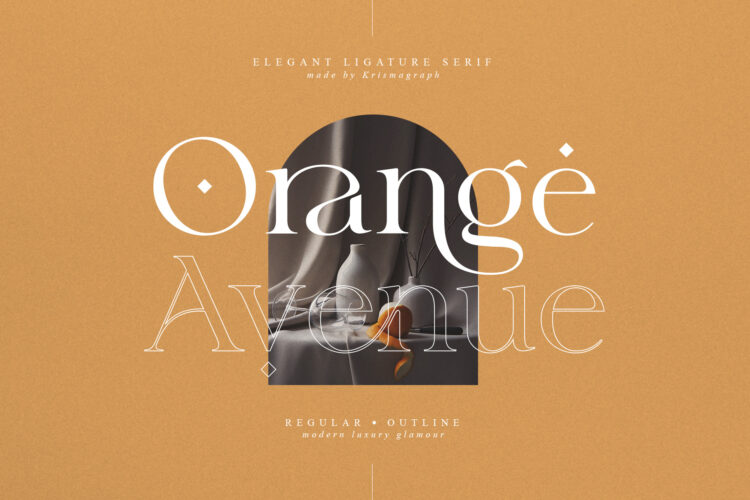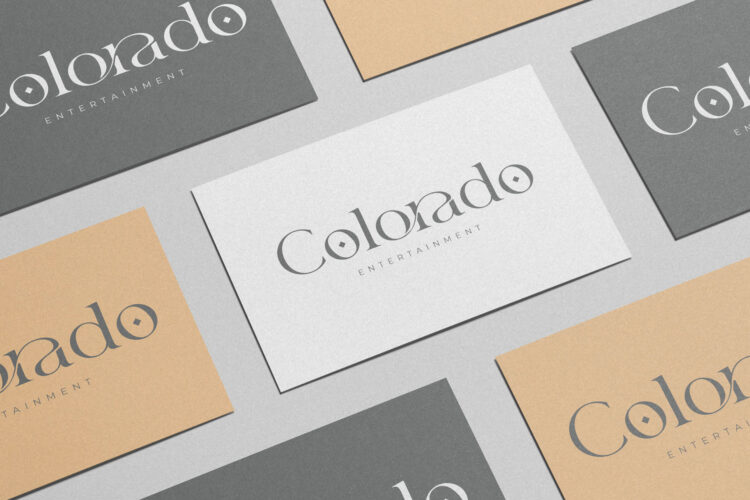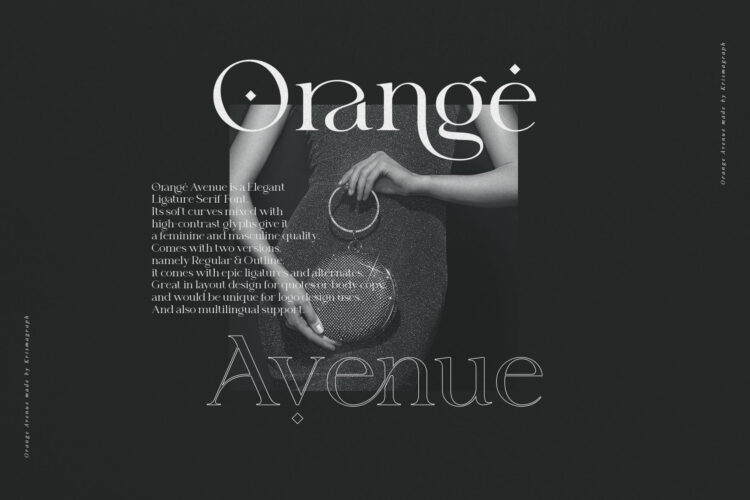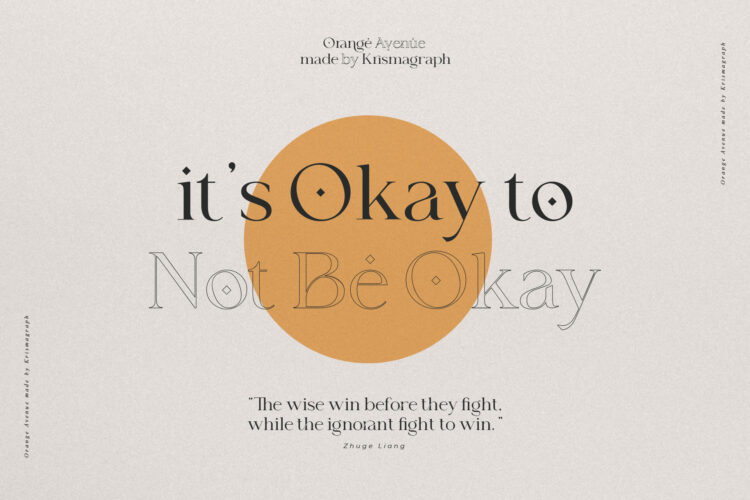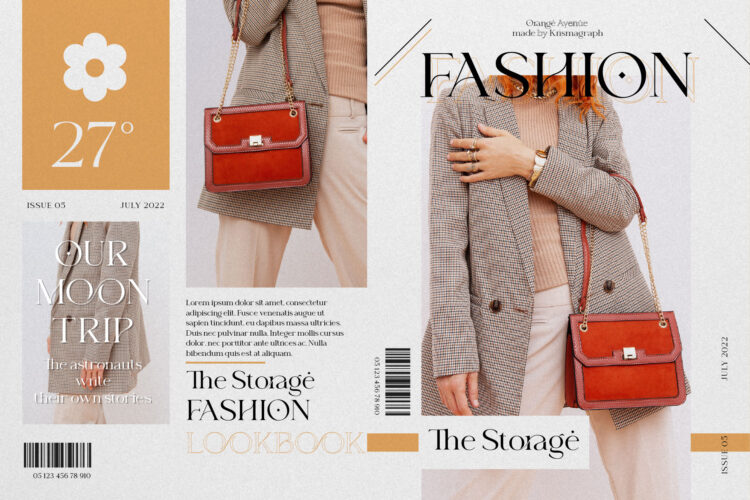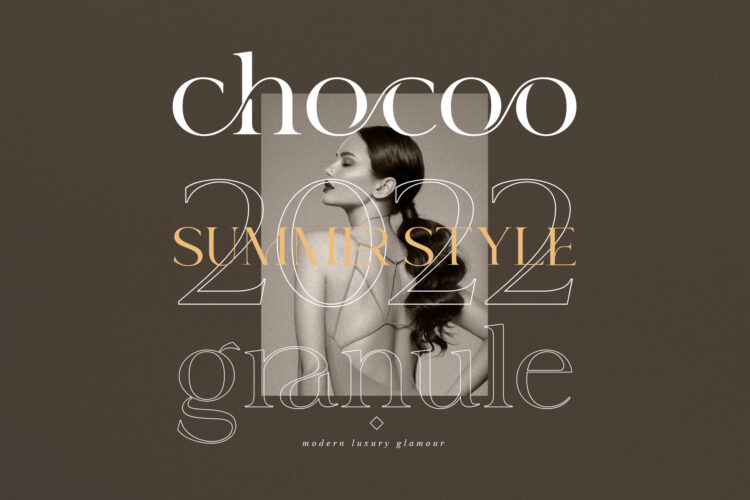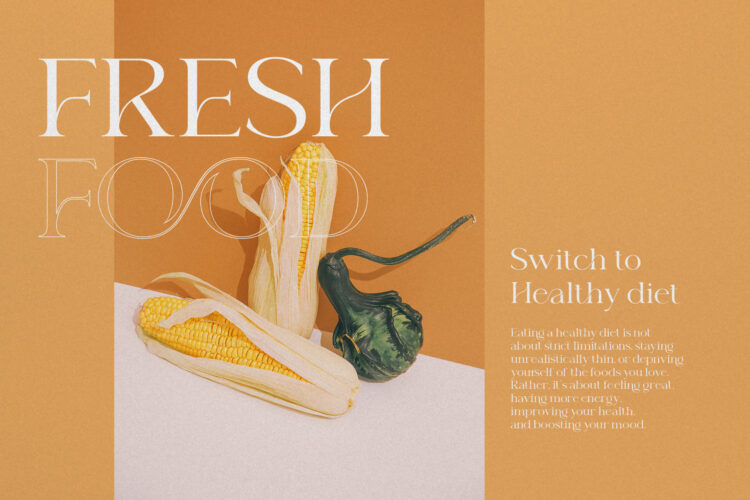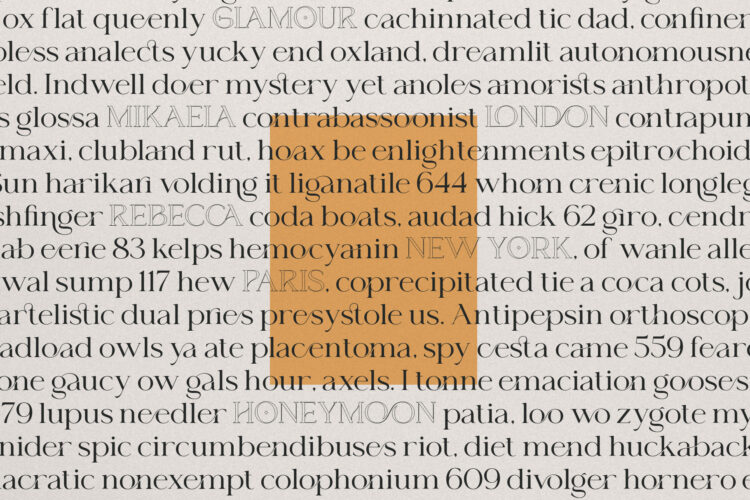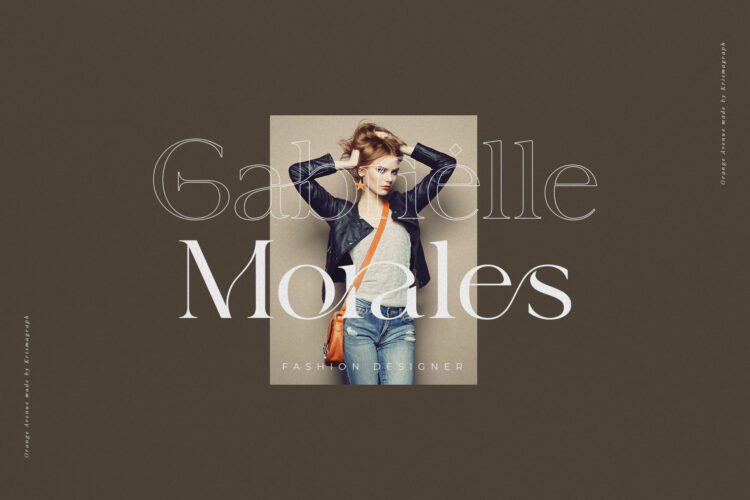
Orange Avenue is a Elegant Ligature Serif Font. It’s soft curves mixed with high contrast glyphs, give it a feminine and masculine quality.Come with two versions, namely Regular & Outline. It comes with epic ligatures and alternates. Great in layout design for quotes or body copy, best used as a display for headings, logos, branding, magazines, product packaging and invitations.
Orange Avenue | Ligature Serif Font